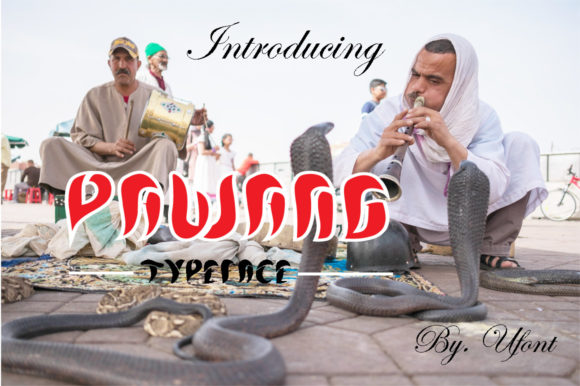
Pawang Font
**Introducing Pawang Font: The Key to Unlocking Your Brand's Bold and Captivating Identity**
Indulge in the mesmerizing world of Pawang, a display font designed to ignite your creativity and elevate your designs to new heights. Crafted by the skilled hands of ufonts, this exceptional font possesses an unparalleled charm that is sure to leave a lasting impression on your audience.
Pawang's enchanting personality stems from its unique interplay of sharp angles and flowing curves, creating a captivating visual dance that dances across the page. Each character exudes a playful yet sophisticated aura, inviting you to explore a world of endless possibilities. Whether you're crafting logos, branding materials, or eye-catching headlines, Pawang empowers you to convey your message with an unparalleled flair.
Dive into a world of boundless creativity with Pawang, where your ideas take flight and your designs soar to new heights. Let this extraordinary font ignite your passion and transform your creative endeavors into masterpieces that captivate and inspire.
**Embrace the Allure of Pawang and Witness the Transformation of Your Designs**
1. **A Visual Symphony:** Pawang's captivating fusion of sharp angles and flowing curves creates a symphony of visual delight, captivating the attention of all who behold it.
2. **Graceful Expression:** Each character in the Pawang family dances with elegance and grace, expressing your message with a touch of sophistication and playful charm.
3. **Unlimited Creative Horizons:** Unleash your boundless imagination and explore a world of creative possibilities, where Pawang empowers you to craft designs that resonate and leave an enduring legacy.
4. **Exceptional Versatility:** From captivating logos to eye-catching headlines and everything in between, Pawang's versatility knows no bounds, adapting seamlessly to a myriad of design projects.
5. **A Font that Inspires:** Let Pawang ignite your creative spark and inspire you to create designs that transcend the ordinary and leave an unforgettable mark.
**Empower Your Brand with the Allure of Pawang**
Pawang is more than just a font; it's a powerful tool that empowers you to:
- Establish a strong and memorable brand identity.
- Create eye-catching designs that captivate and engage.
- Unleash your creativity and explore endless possibilities.
- Stand out from the crowd and make a lasting impression.
Join the growing community of designers who have discovered the transformative power of Pawang. Let this extraordinary font elevate your designs to new heights and unlock your brand's true potential.